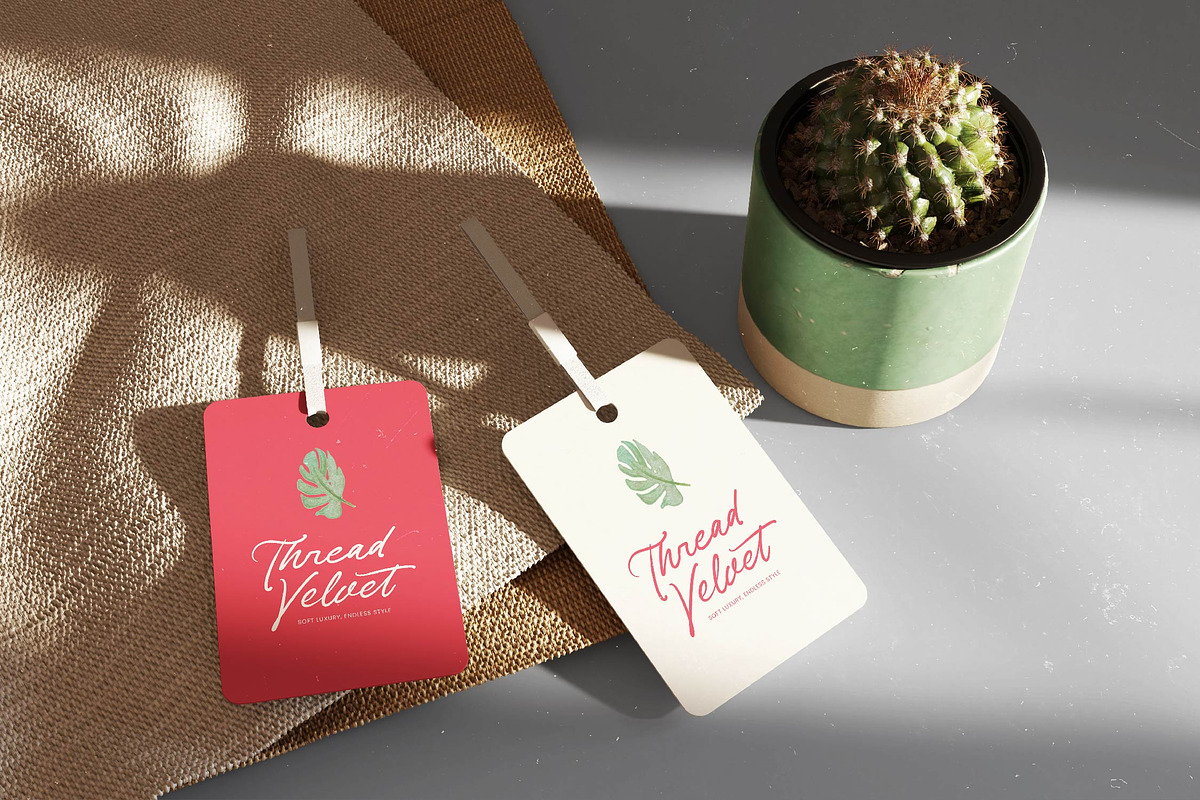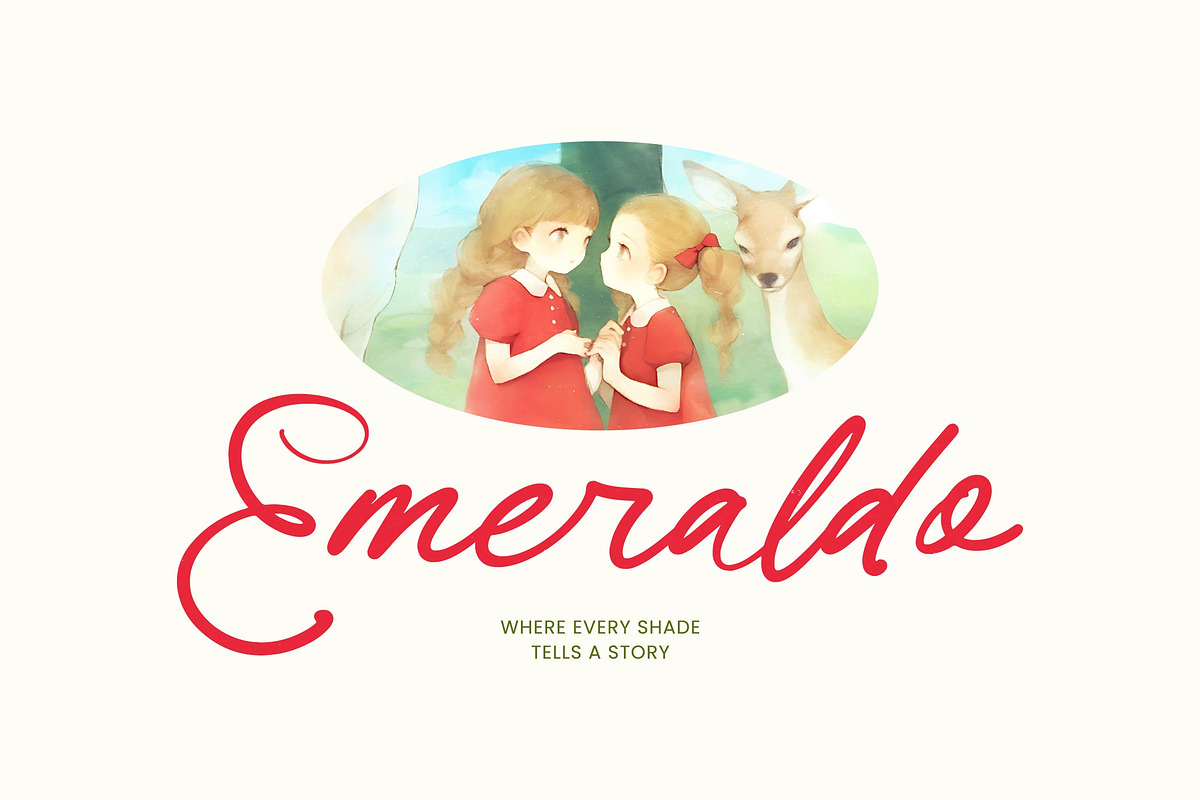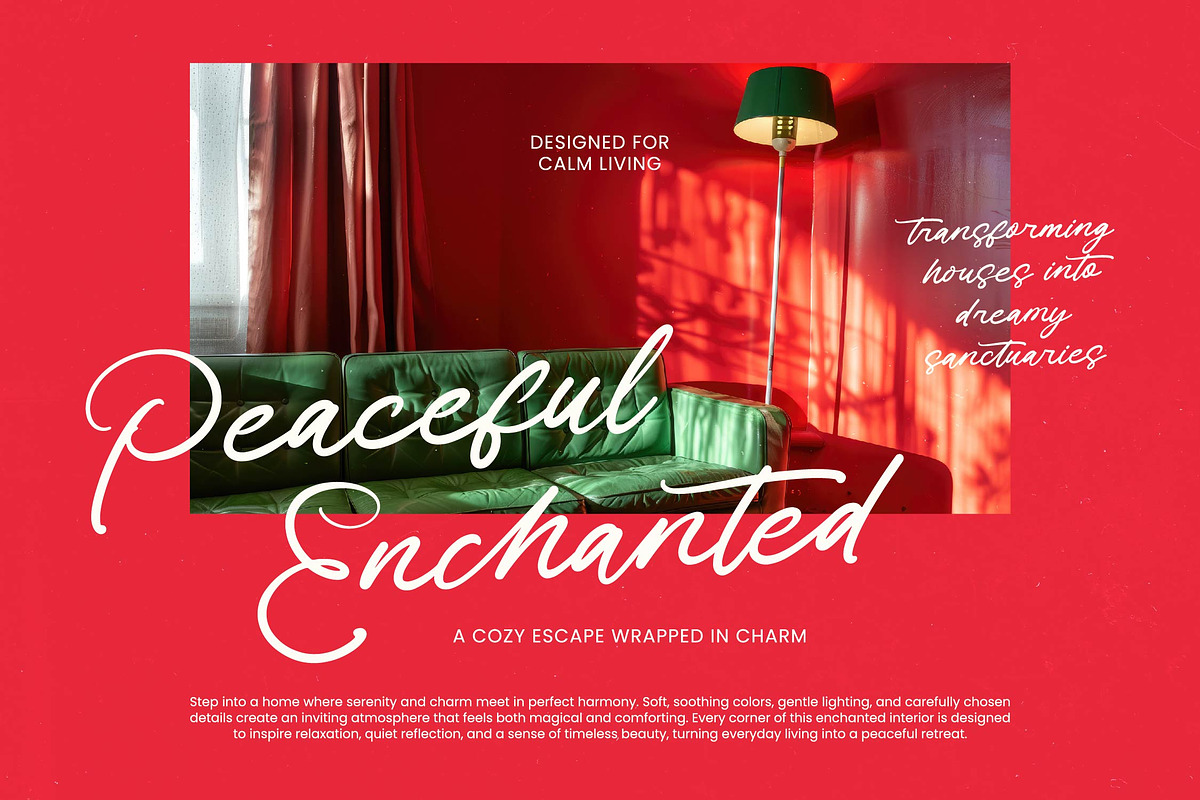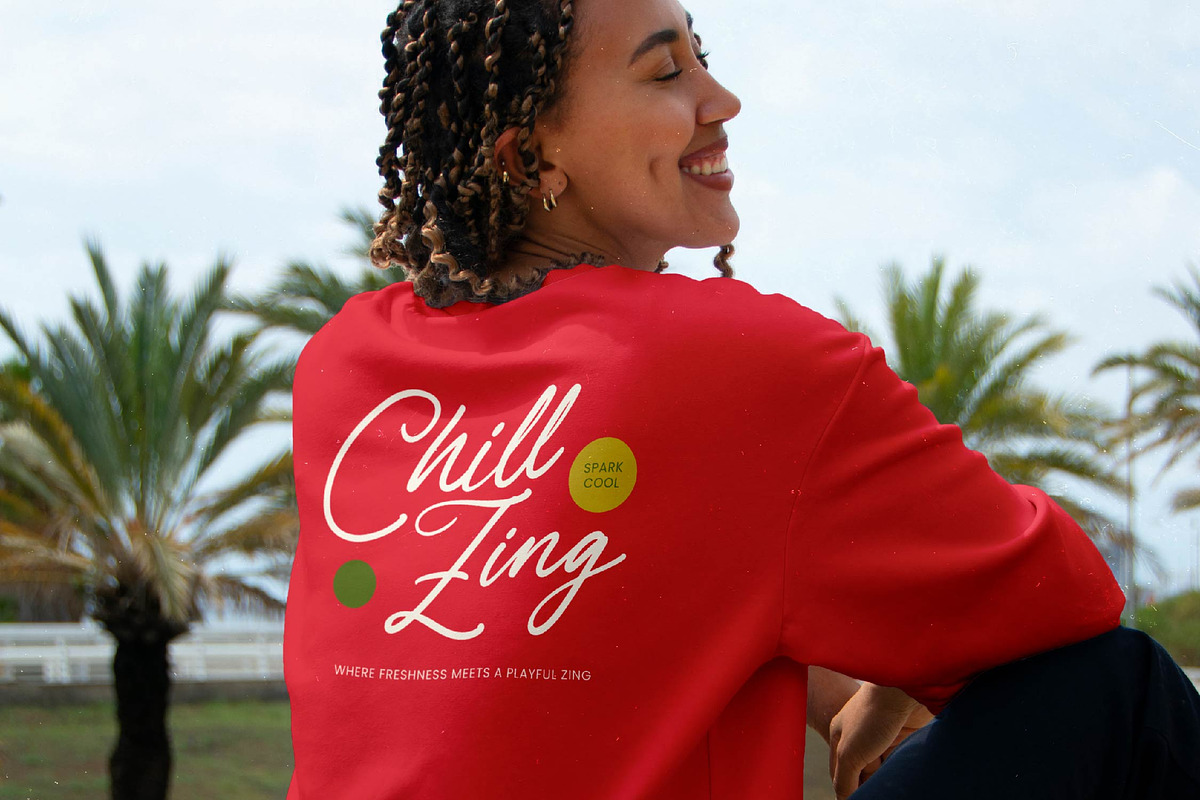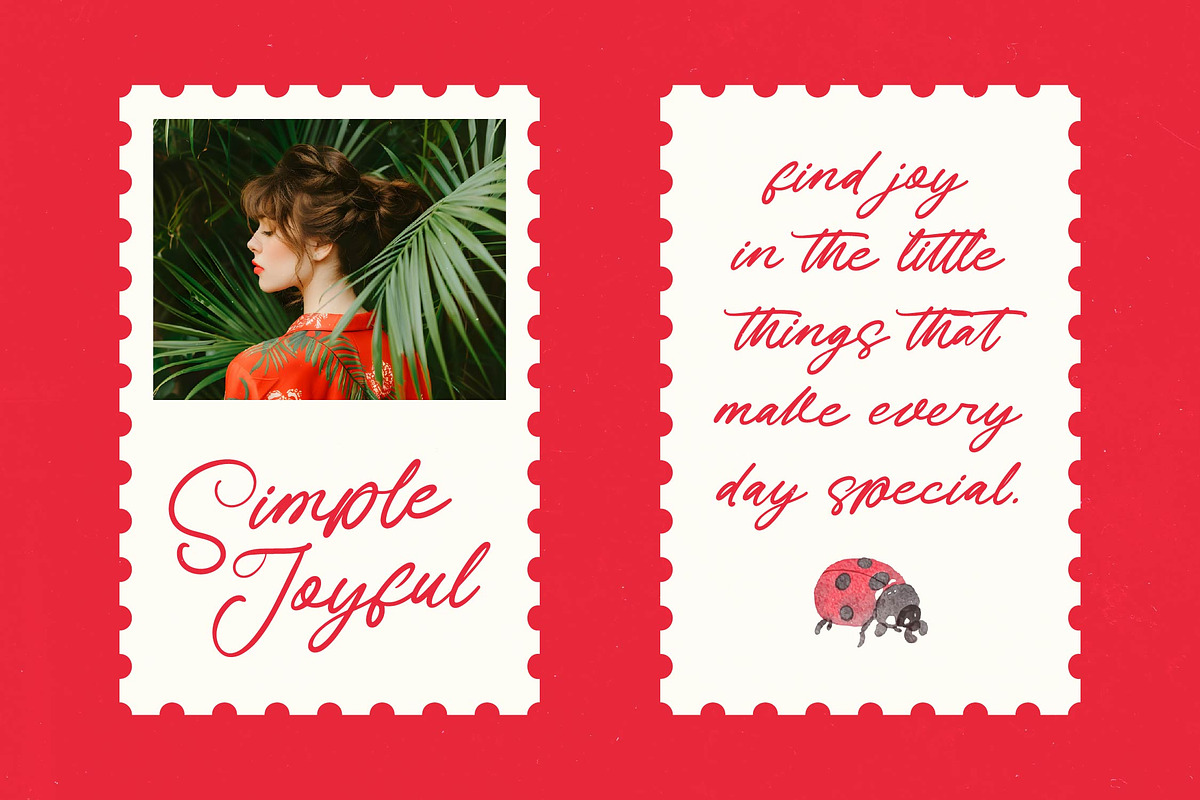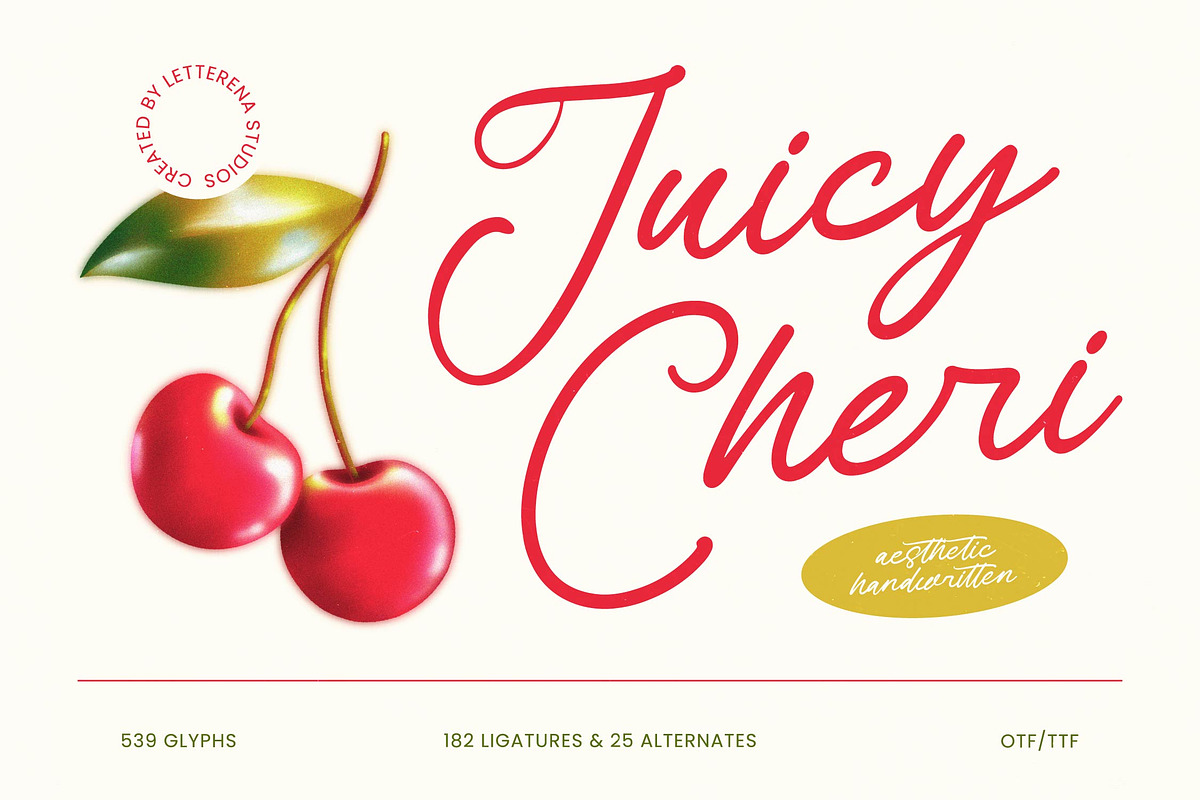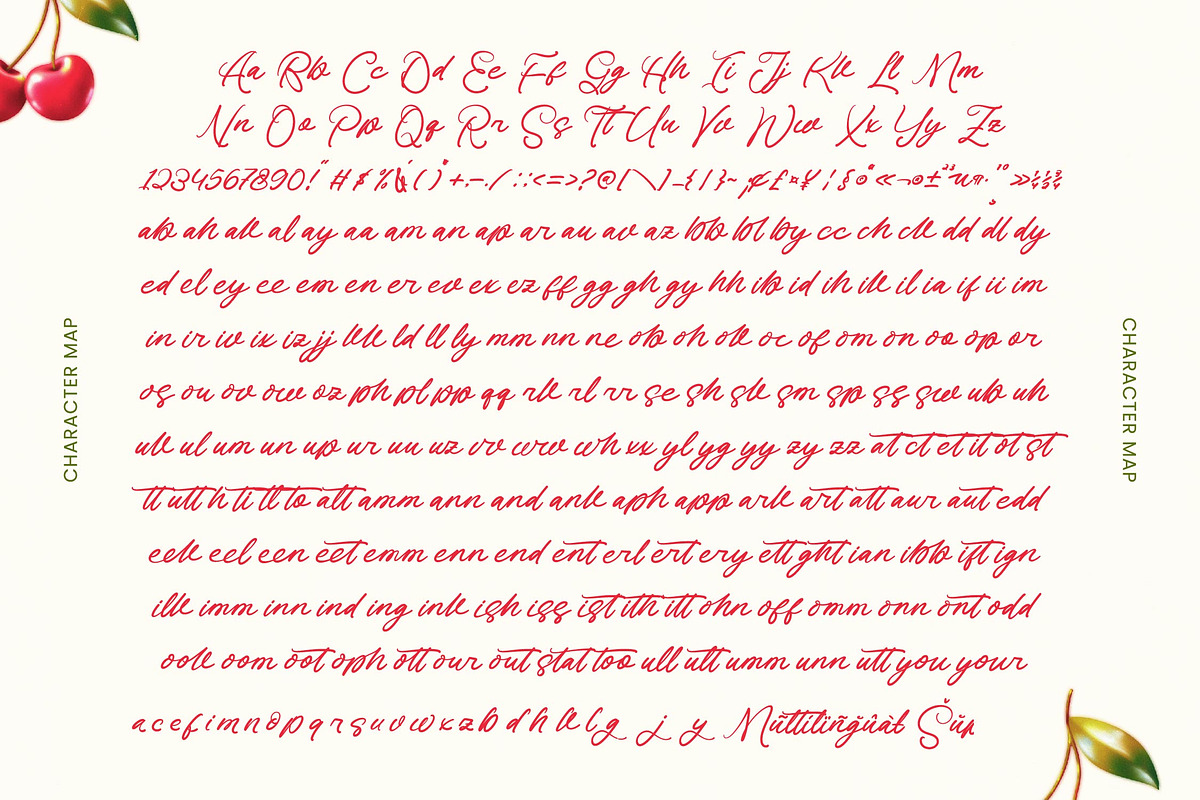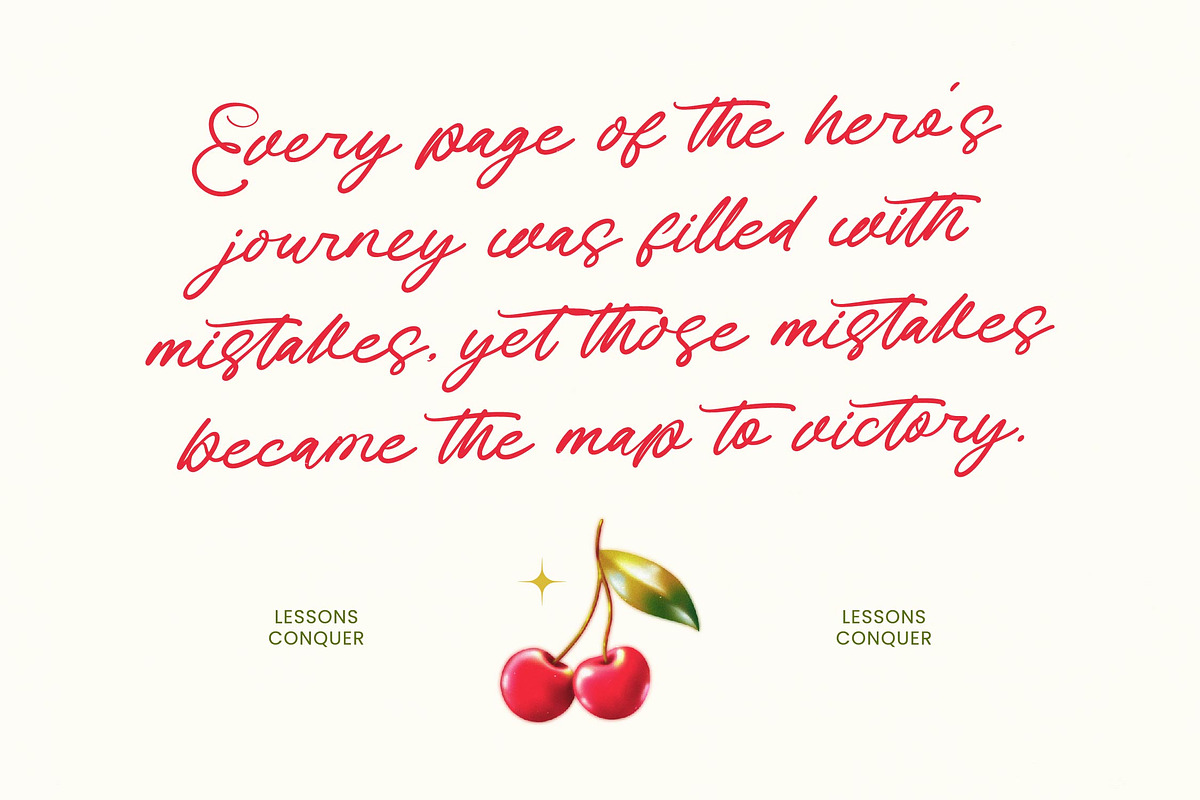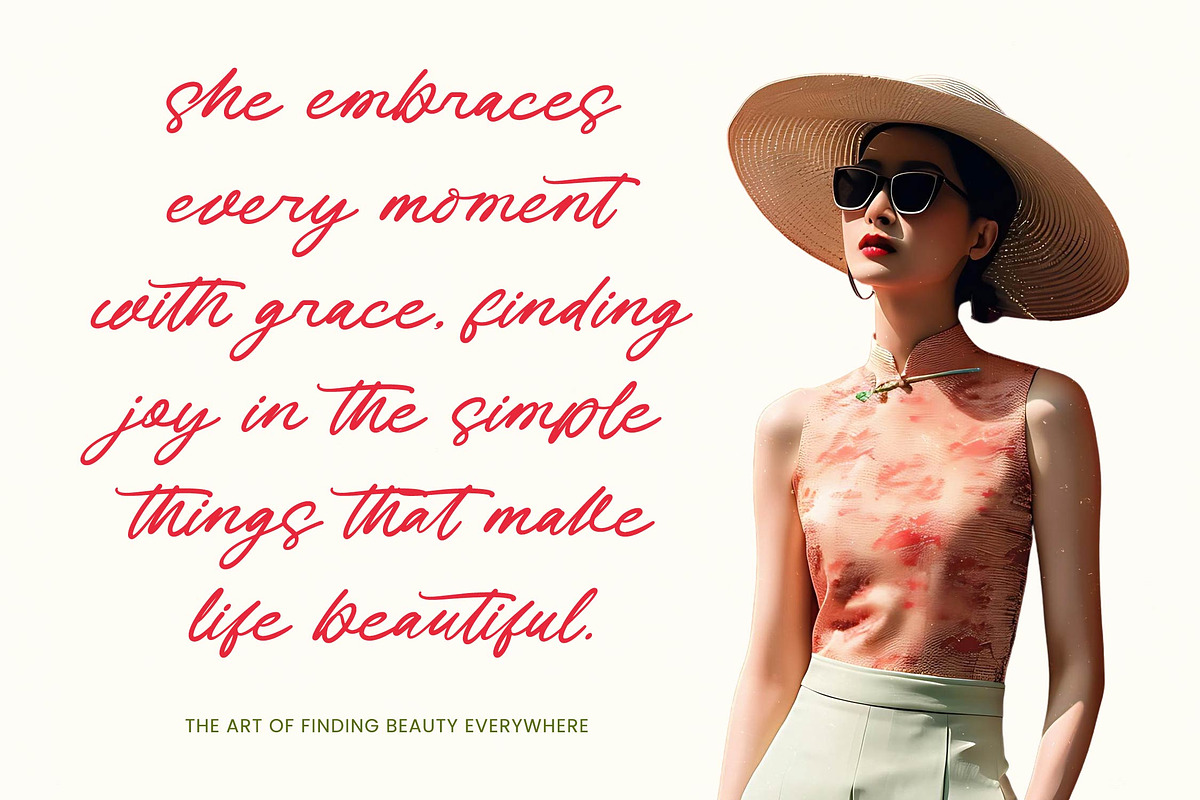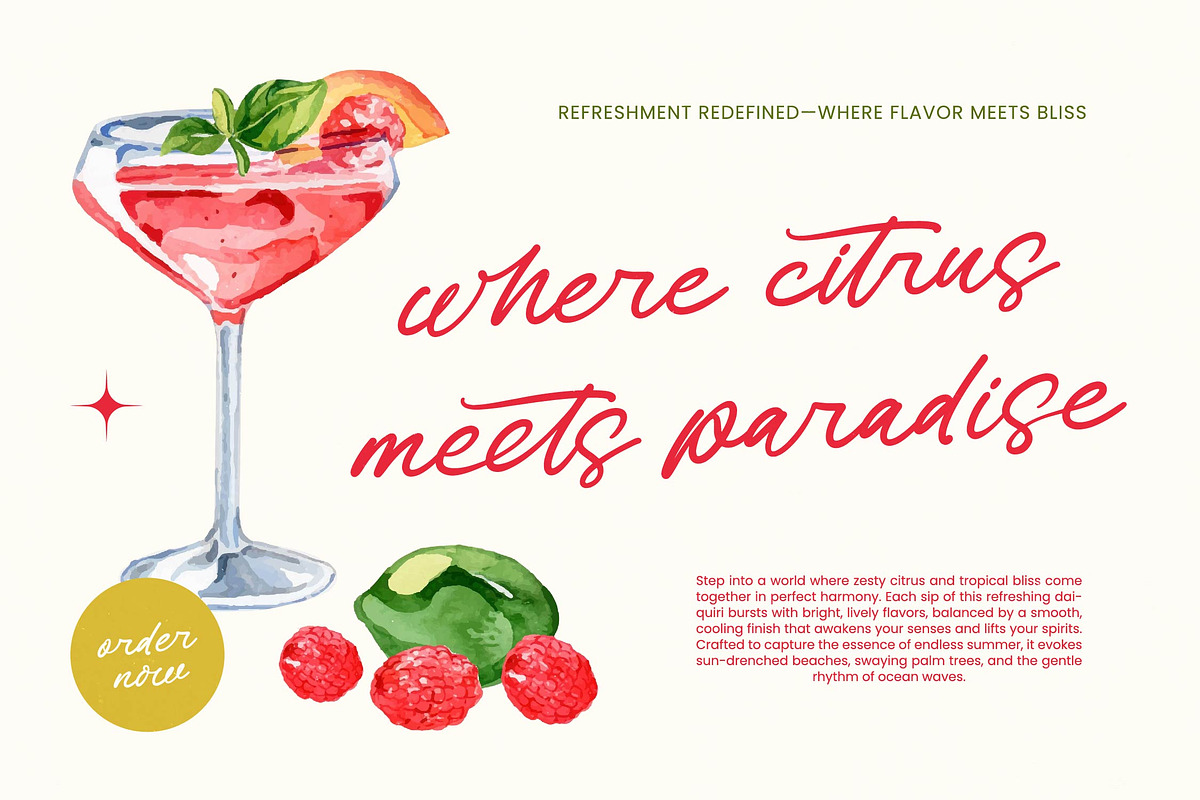
Juicy Cheri Aesthetic Handwritten
Juicy Cheri - Aesthetic Handwritten , Elevate your creative vision with a typeface that embodies contemporary elegance and a fluid organic rhythm. Juicy Cheri - Aesthetic Handwritten offers a stunning balance between handcrafted charm and professional polish, making it an essential tool for designers seeking a high-impact visual identity. Its flowing strokes and natural connections create a sophisticated silhouette that captures attention instantly, ensuring your message is delivered with both warmth and authority.
Precision engineering meets artistic expression in this comprehensive font package featuring over 539 glyphs. With its extensive multilingual support, Juicy Cheri - Aesthetic Handwritten adapts seamlessly across global markets, making it incredibly versatile for international projects. The inclusion of 182 ligatures and 25 alternates allows for customizable typography that looks truly bespoke, providing the technical versatility required for complex, high-end design environments.
Unlock limitless design possibilities across a diverse range of premium industries with a font designed for maximum impact. This typeface is the ideal application for luxury branding, modern packaging, editorial design, and refined stationery. It is particularly perfect for lifestyle brands and social media assets that demand an authentic aesthetic. Whether you are crafting a corporate logo or an exclusive product label, Juicy Cheri - Aesthetic Handwritten provides the visual sophistication needed to stand out.
Secure a competitive edge in the visual marketplace with an unforgettable typographic asset that transcends fleeting trends. Juicy Cheri - Aesthetic Handwritten is more than just a font; it is a strategic design investment that guarantees unmatched quality and timeless appeal. By integrating this dynamic script into your workflow, you ensure a polished professional finish that resonates with discerning audiences and elevates your brand’s aesthetic value to new heights.